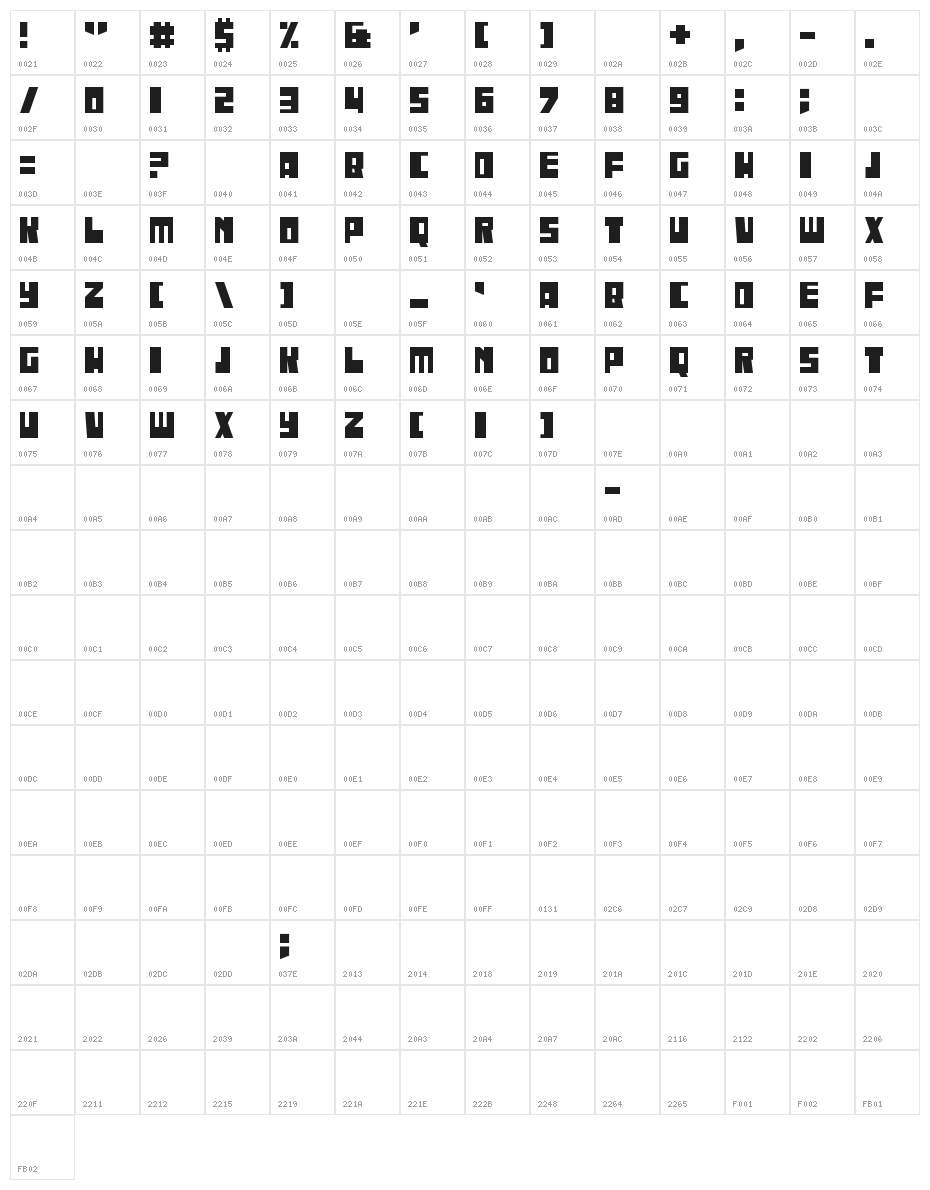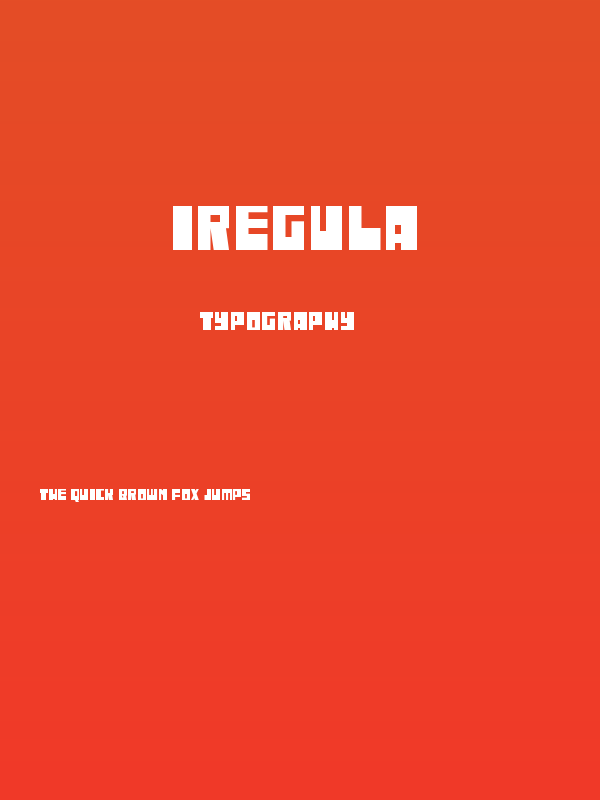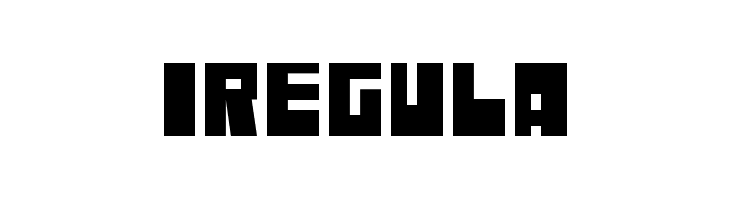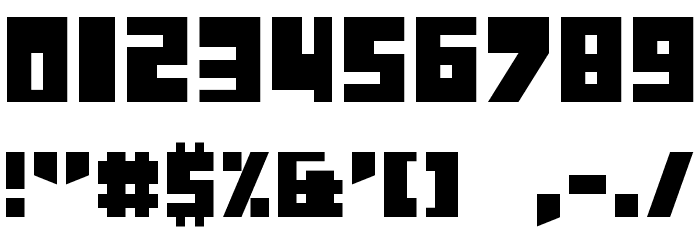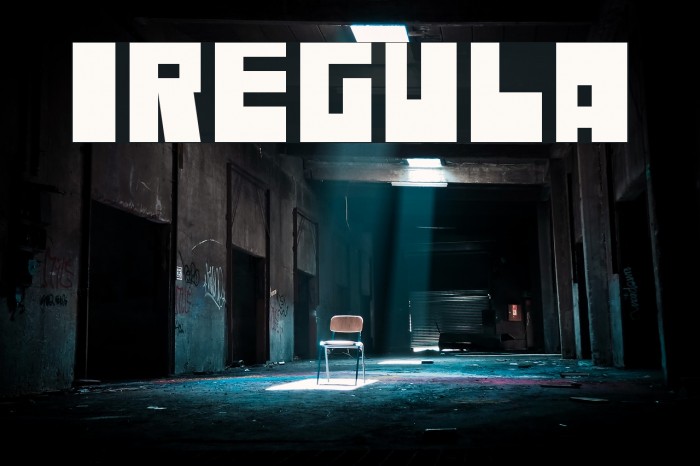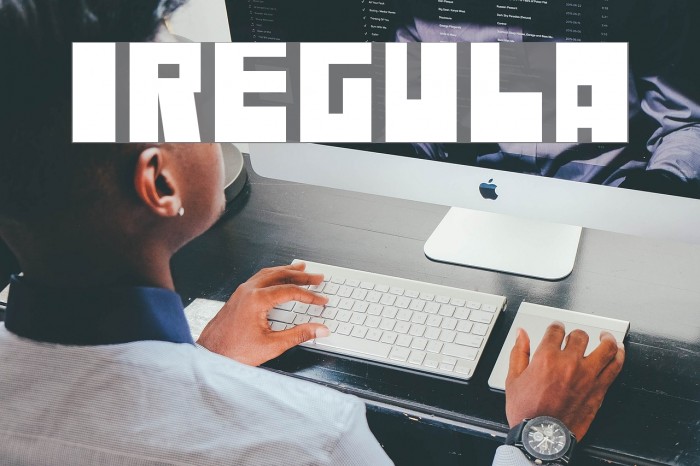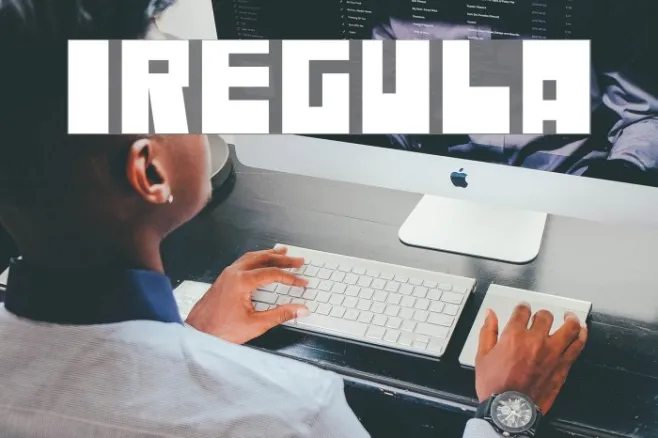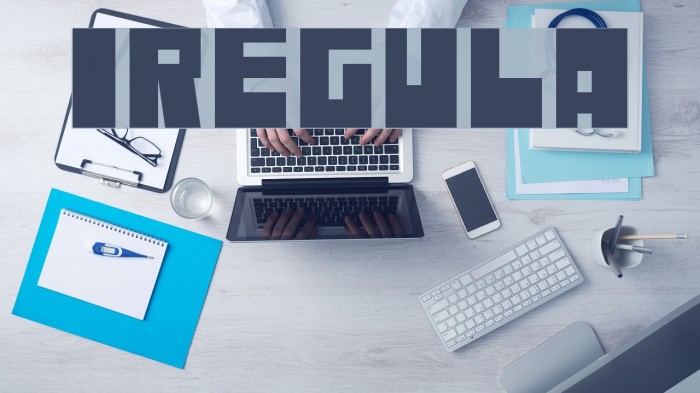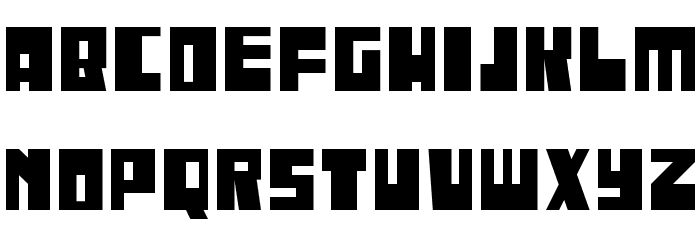
Iregula Description
This font features a bold, geometric style with a strong emphasis on angular shapes and sharp edges. The characters are uniformly thick, creating a striking and impactful appearance. The uppercase and lowercase letters share a consistent design, enhancing the font's cohesive look. Numbers and special characters are designed with the same boldness, ensuring uniformity across all glyphs. The font's blocky nature gives it a modern and edgy feel, suitable for attention-grabbing designs.
| Proposed Projects | Ideal for posters, headlines, logos, and branding materials that require a strong visual impact. |